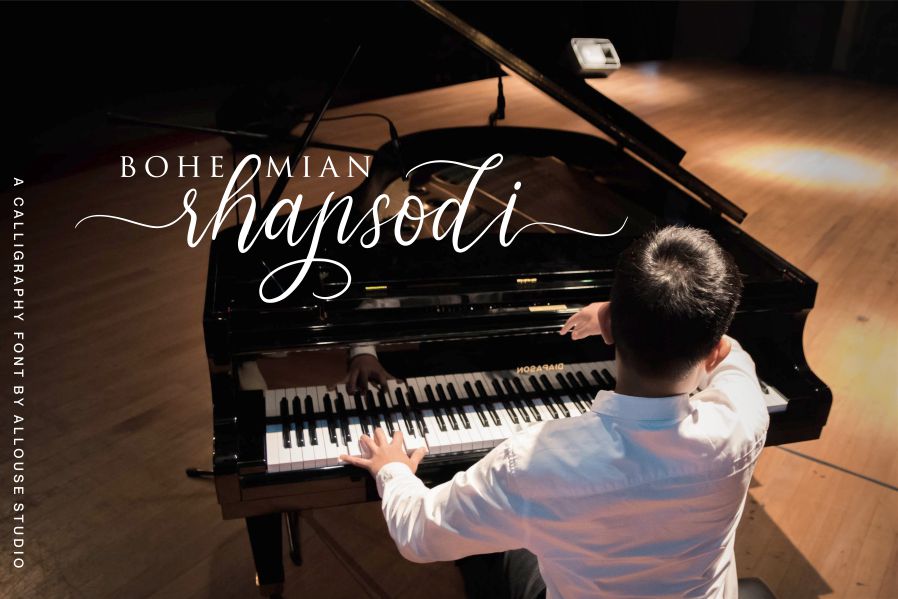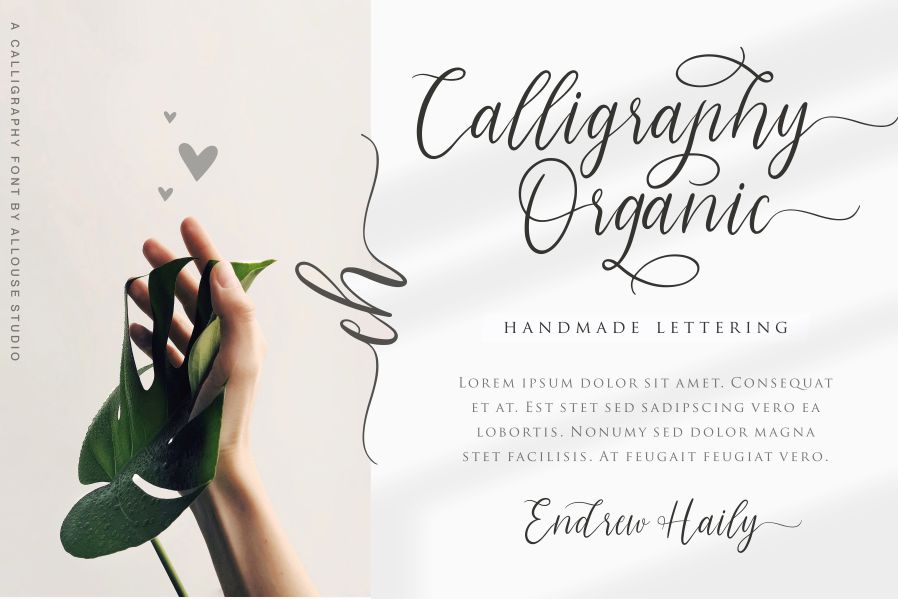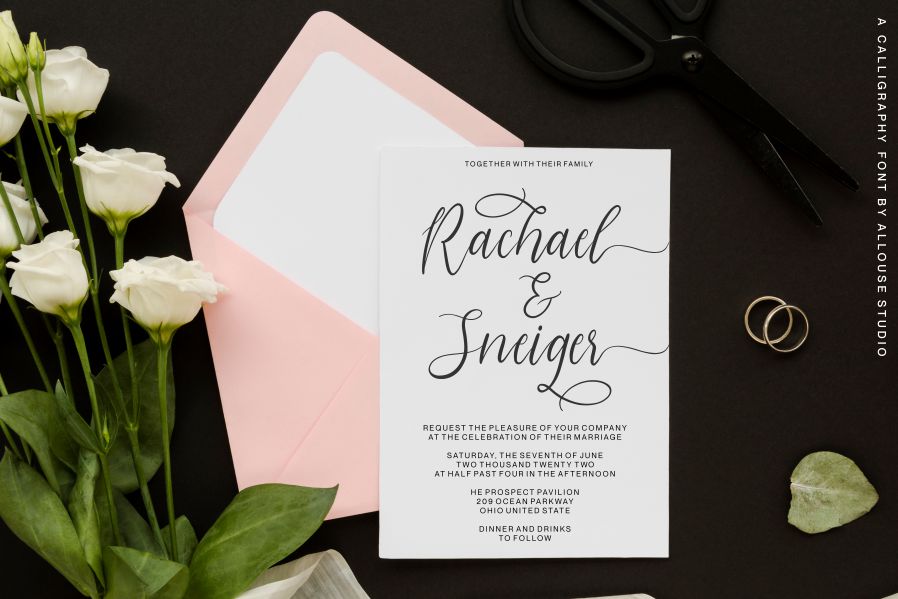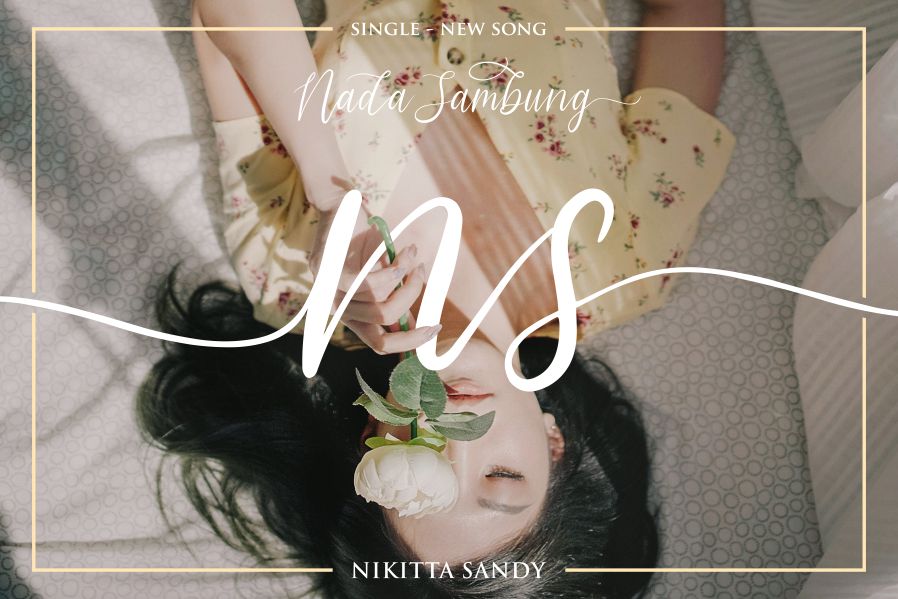
Morpline Font
Morpline Calligraphy Font
This font is perfect for any titles, logo, product packaging, branding project, megazine, social media, wedding, or just used to express words above the background.
Morpline includes OTF, TTF, WOFF, ligatures, stylistic alternates, beginning and ending swash. Morpline also come with Multi-Lingual Support.